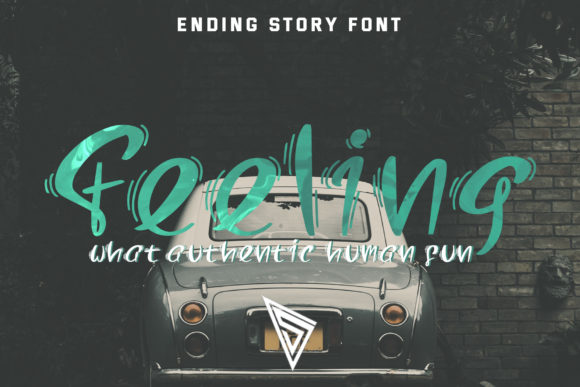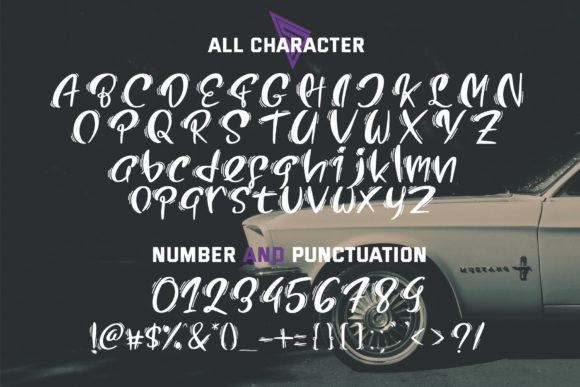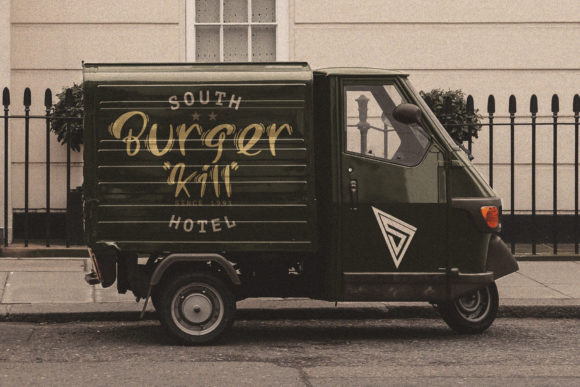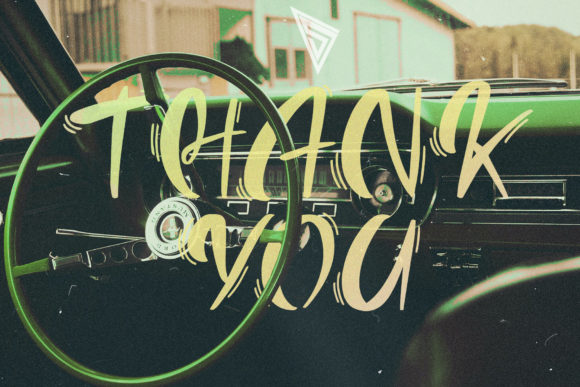
Ending Story Font
About Ending Story Font
Ending Story is a cool, casual and urban styled handwritten font. It will look stunning on any poster, flyer or print.